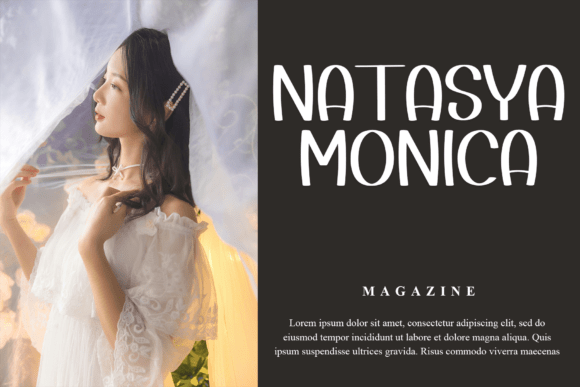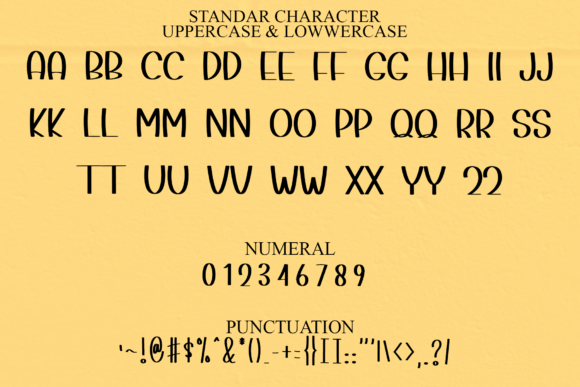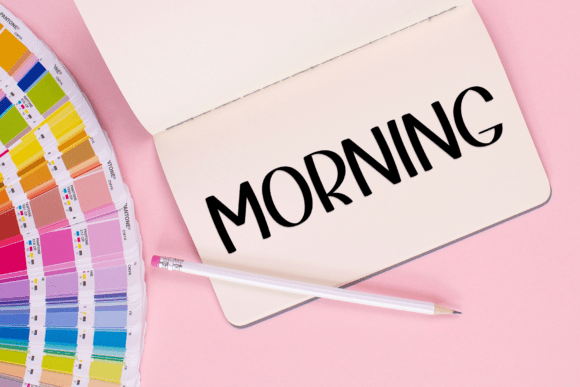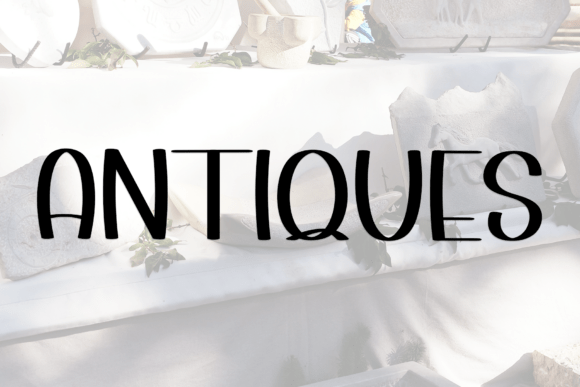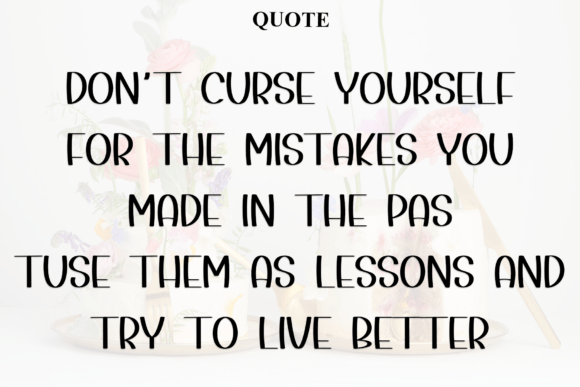
Introduction to History Handmade Font
There’s nothing quite like the feeling of getting lost in a creative project, surrounded by twinkling lights, and the scent of freshly baked cookies wafting through the air. As a designer, you know the joy of bringing a vision to life, and the History Handmade Font is the perfect companion for any holiday-themed project. With its whimsical flair and decorative elements, this festive font is sure to add a touch of magic to your designs.
As a valuable addition to any designer’s toolkit, the History Handmade Font is a must-have for anyone looking to add a touch of holiday cheer to their designs. With its transparent background and versatility, this font is the perfect choice for any creative project, from social media graphics to print materials.
Key Features of History Handmade Font
- Unique, high-quality design inspired by historical elements, perfect for creative projects requiring a vintage touch.
- Perfect for designers, artists, and historians looking for a distinctive and authentic font to add a touch of history to their work.
Honest Review: History Handmade Font
I recently had the chance to work with the History Handmade Font, and I must say it’s been a great addition to my design resources. As a designer, I’m always on the lookout for unique and high-quality fonts to elevate my creative projects. This font definitely delivers.
- ✨ Unique, handcrafted design that adds character to any text-based element.
- ✨ High-quality vectors that can be scaled up or down without losing any of the intricate details.
However, I do have a few concerns:
- ⚠️ The transparent background can be tricky to work with, especially when combining with other design elements.
- ⚠️ The font may not be suitable for small text sizes due to its intricate design.
Overall, I’m impressed with the History Handmade Font. Its unique design and high-quality vectors make it a valuable addition to any designer’s toolkit. While it may have some limitations, it’s a great resource for designers looking to add some personality to their creative projects.
The History Handmade Font is perfect for creative projects, such as invitations, posters, and brochures. It’s also great for designing business cards, social media graphics, and other marketing materials. With its free download and transparent background, this font is a valuable design resource for anyone looking to add a touch of elegance to their designs.